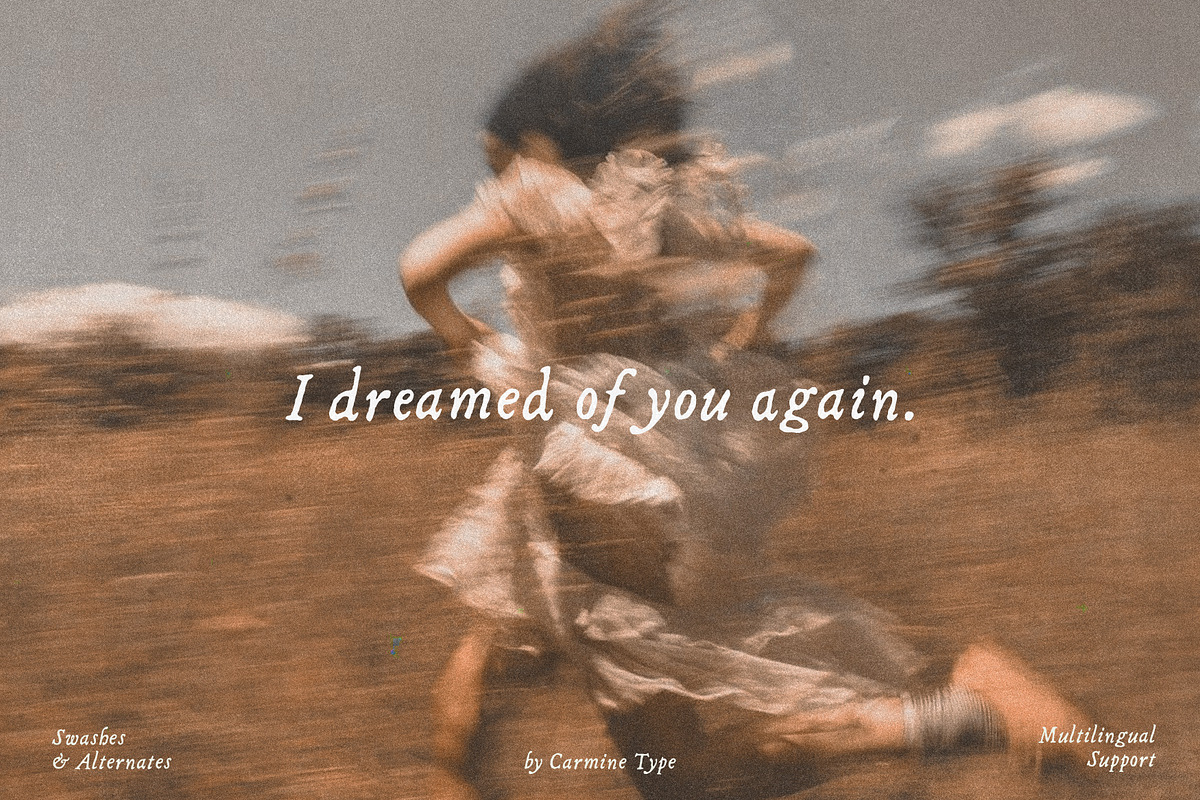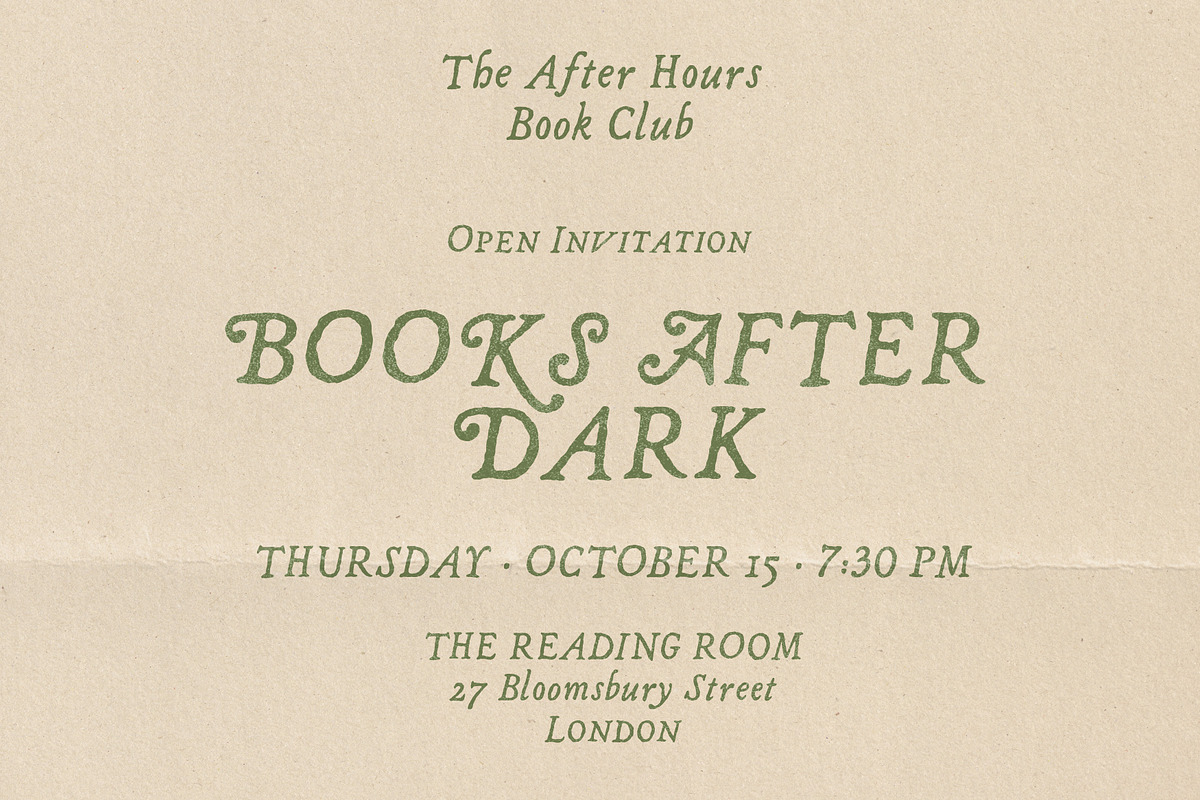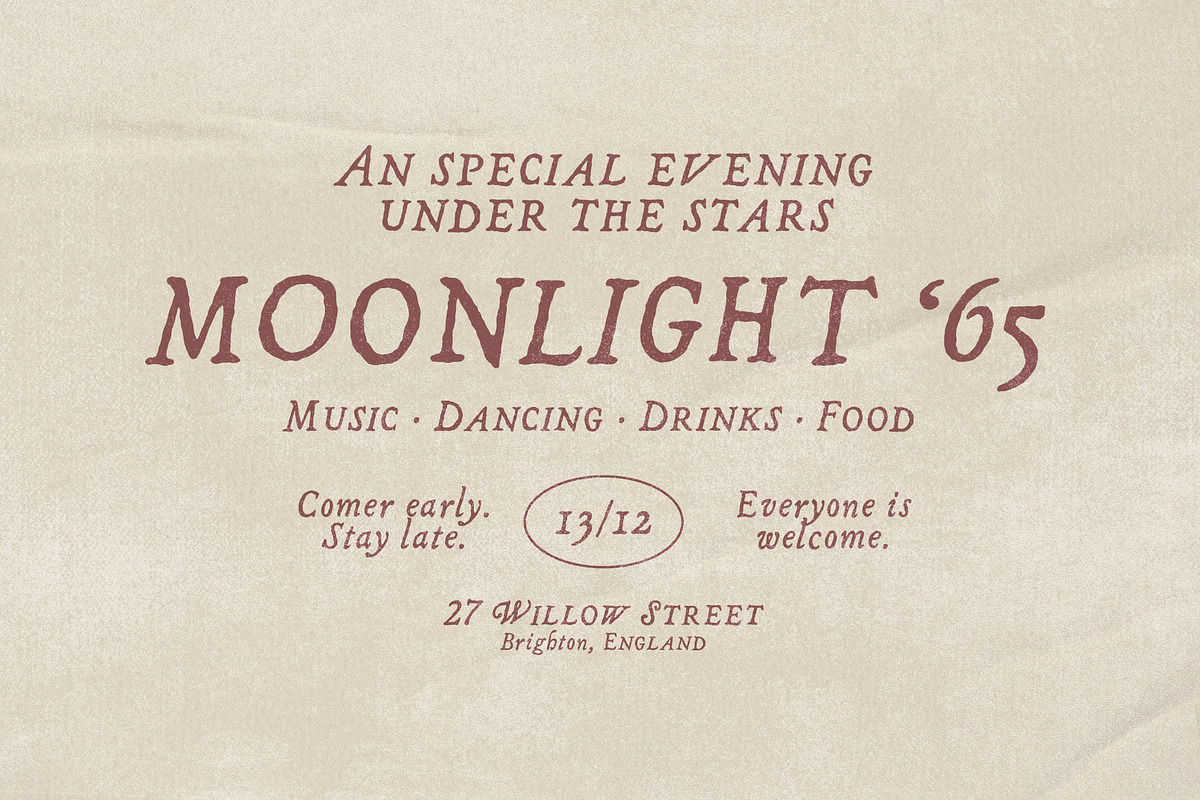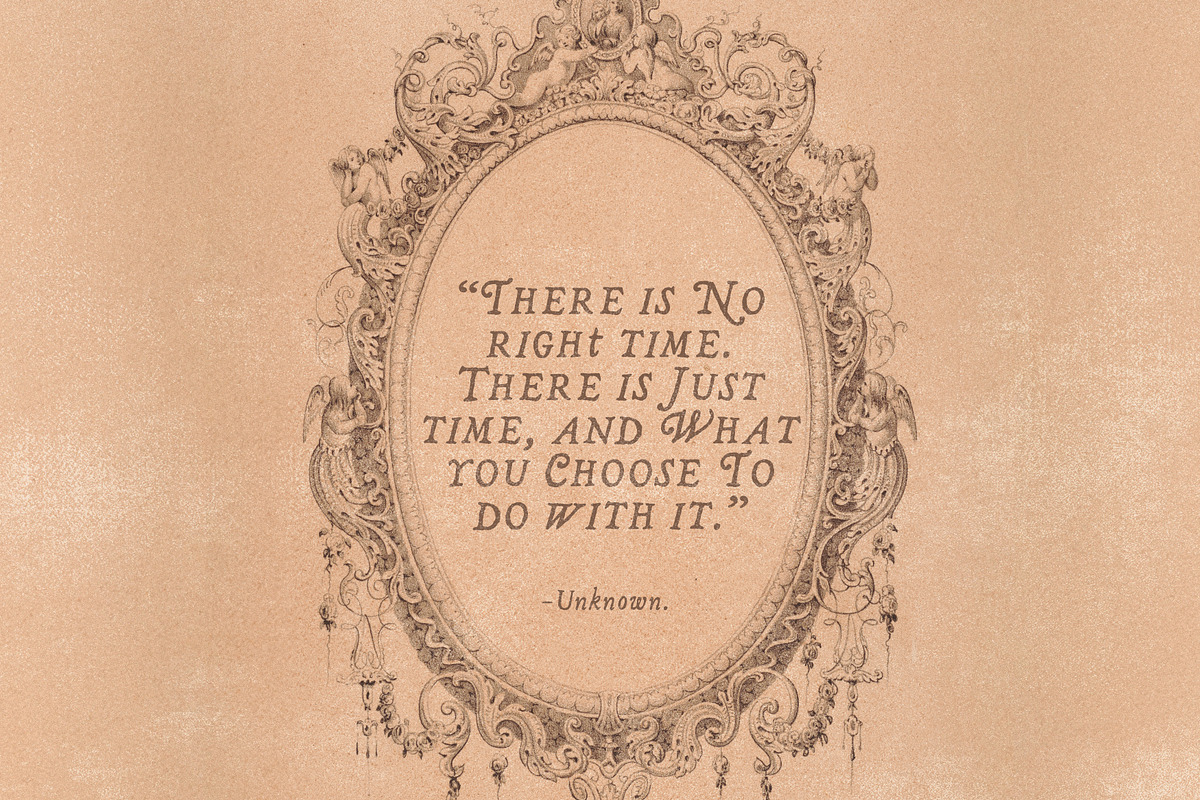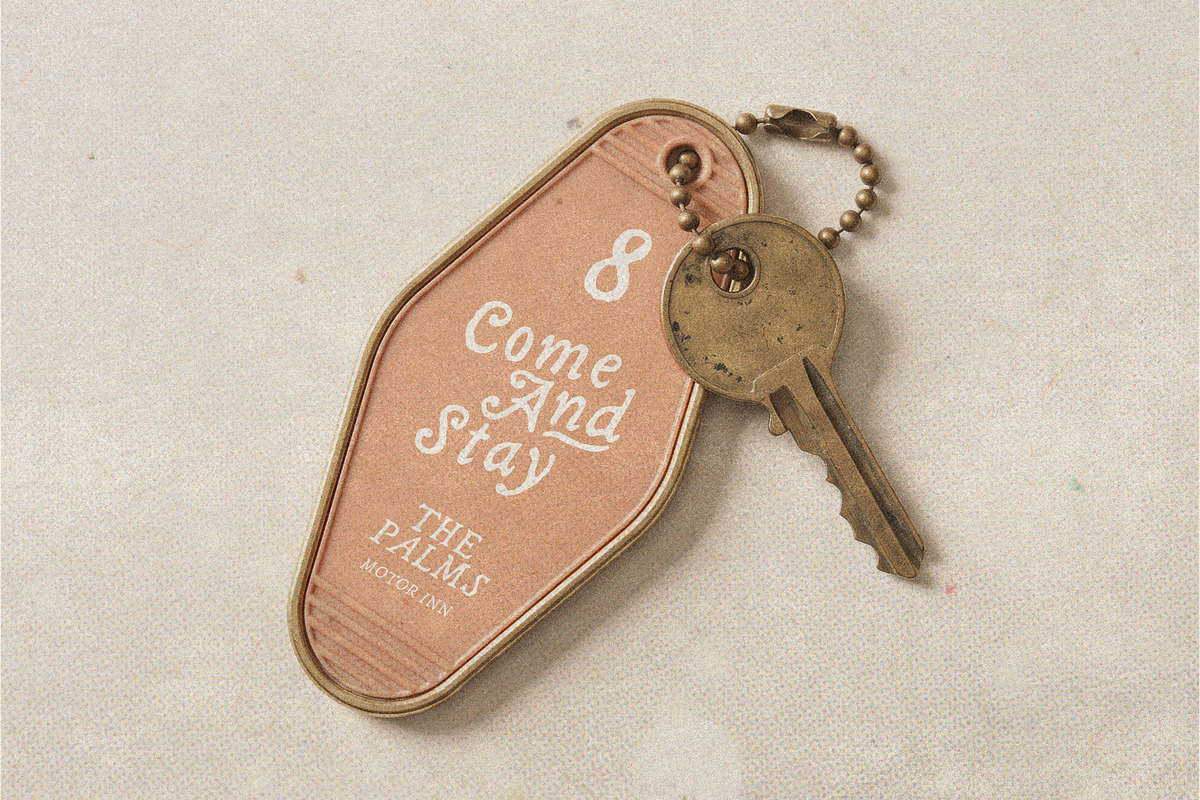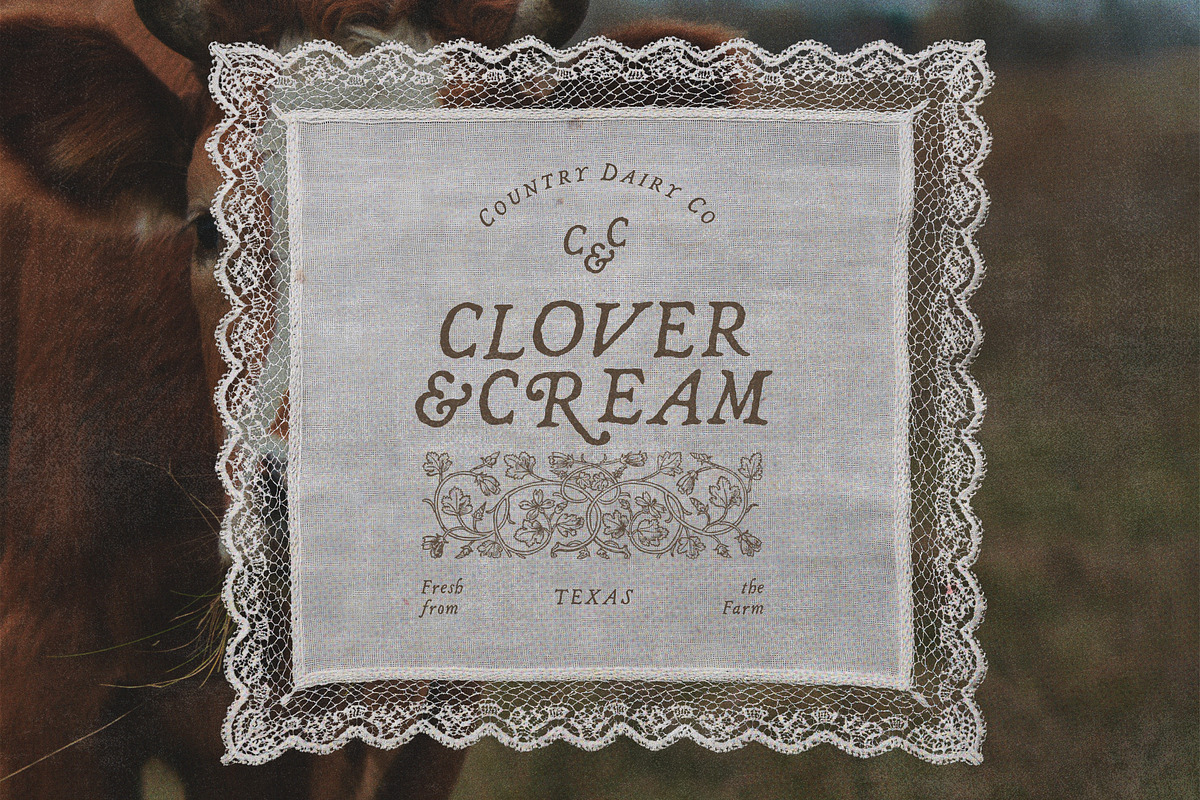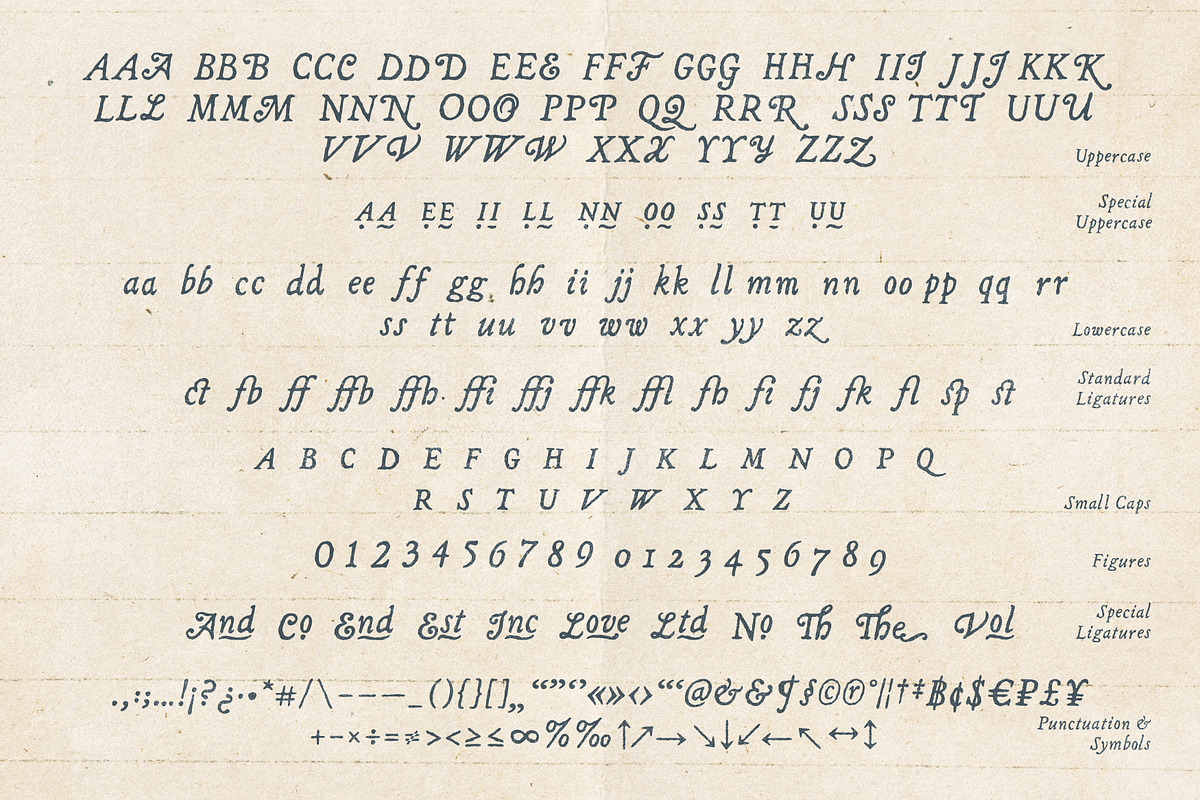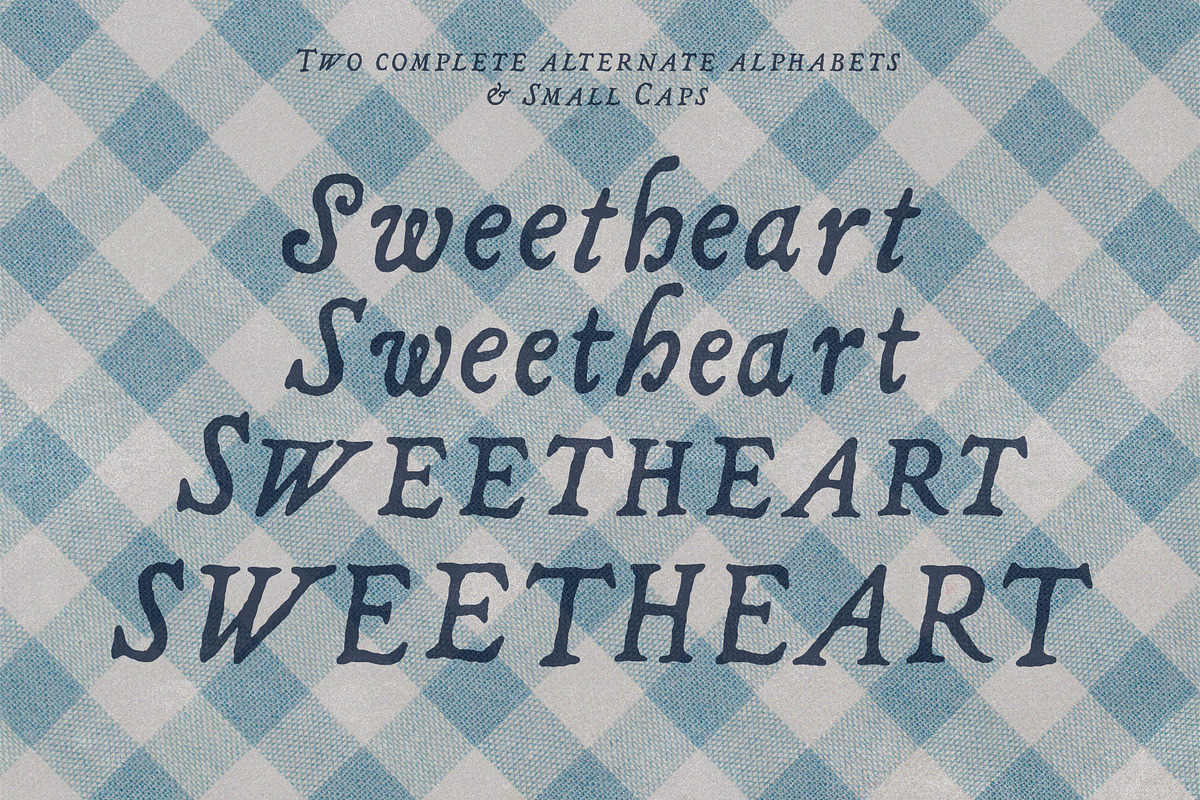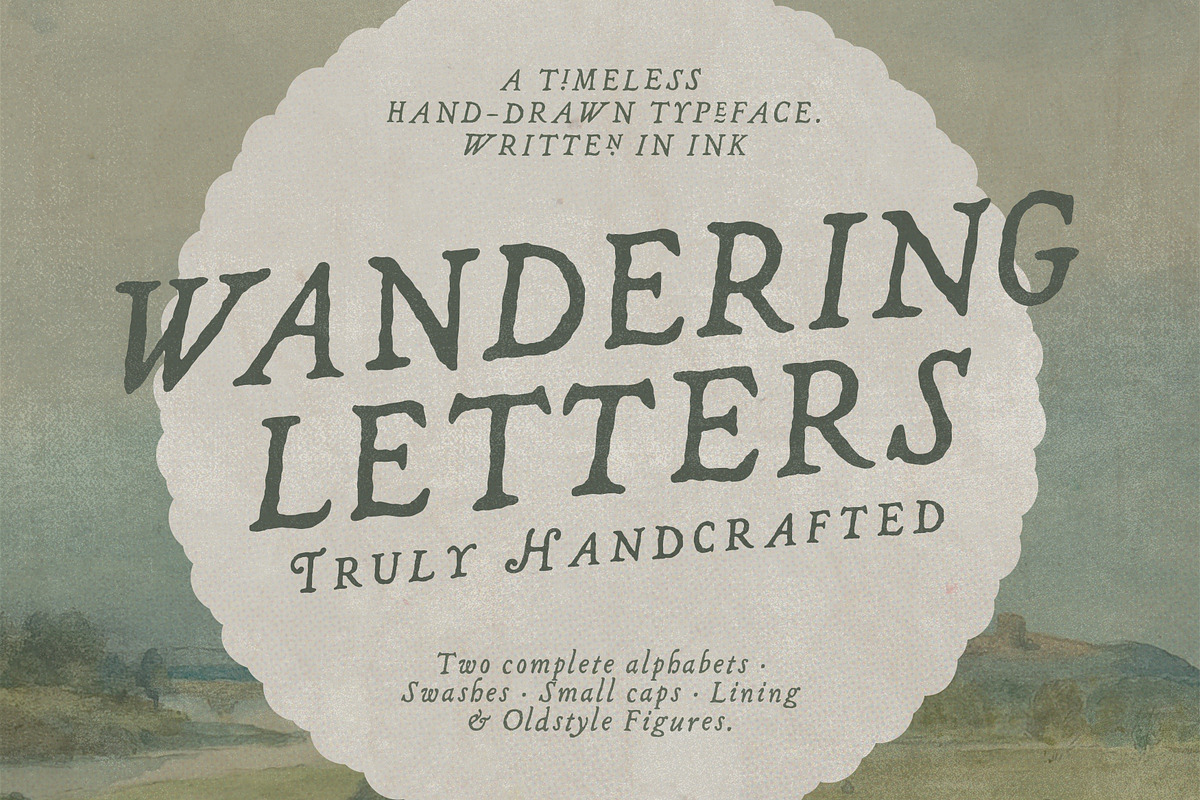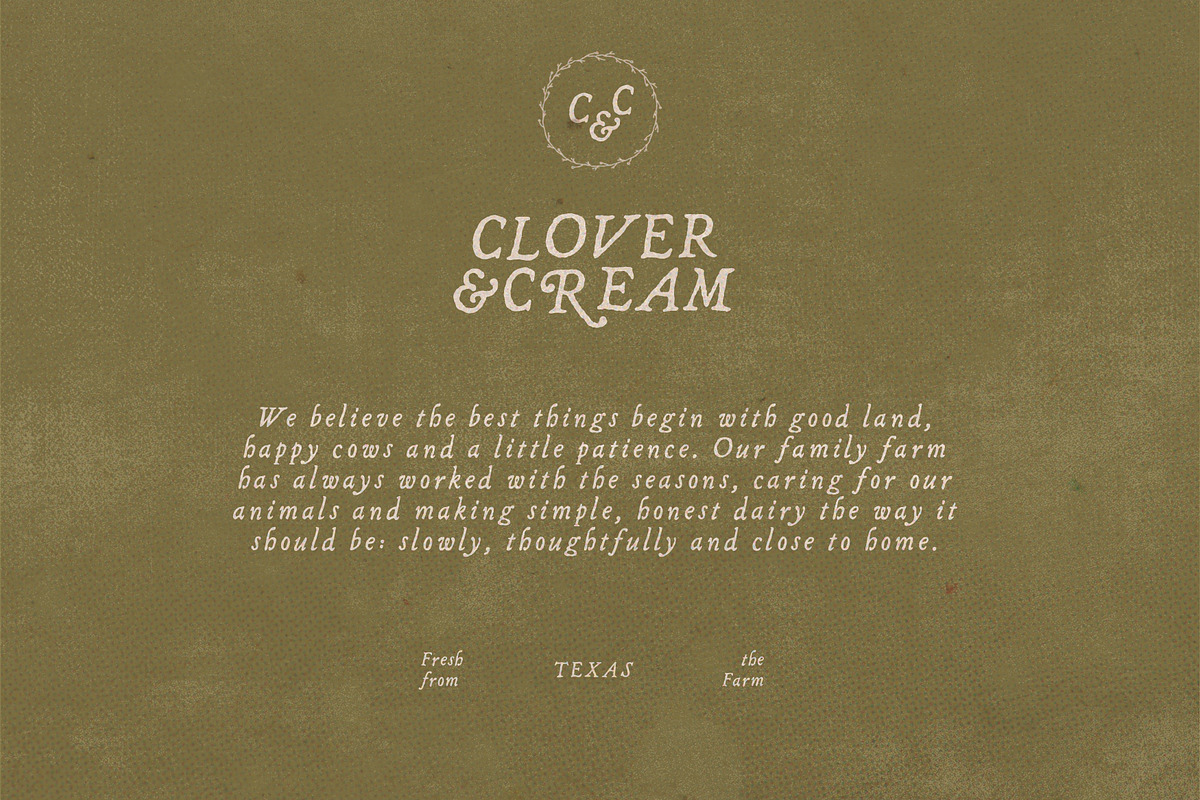
Wandering Letters Handwritten Font
Wandering Letters is a timeless hand-drawn typeface with serif-inspired letterforms, an organic ink texture and a distinctive heritage feel. Originally drawn by hand, it preserves the natural irregularities and imperfections of traditional hand lettering.
Inspired by vintage lettering and old printed matter, its expressive character is perfect for branding, packaging, editorial design, logos, wedding stationery, invitations, posters and hospitality.
Wandering Letters includes two complete hand-drawn alphabets, with two different versions of every uppercase and lowercase letter. This natural variation creates a more authentic handmade feel and avoids the repetition usually associated with digital type.
Through OpenType Contextual Alternates, repeated letters automatically alternate between different forms, making words look more spontaneous and genuinely hand-drawn. Stylistic alternates and swashes offer even more possibilities for creating unique words, headlines and logotypes.
Included Features
Two complete hand-drawn alphabets
OpenType Contextual Alternates
Stylistic Alternates & Swashes
Small Caps
Lining & Oldstyle Figures
Fractions, Superscripts & Subscripts
Extended punctuation & symbols